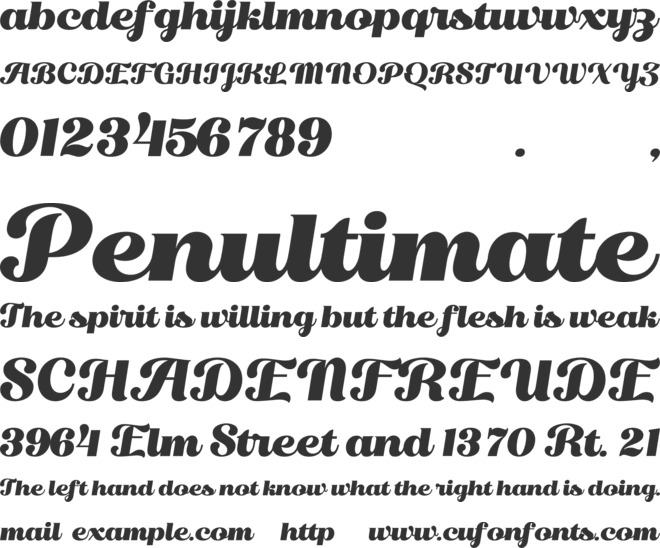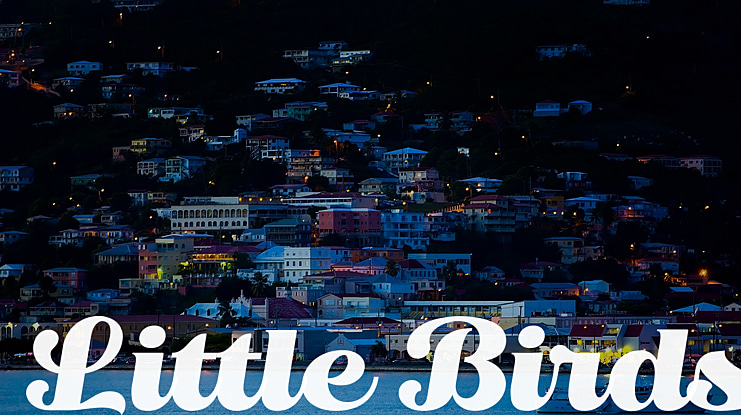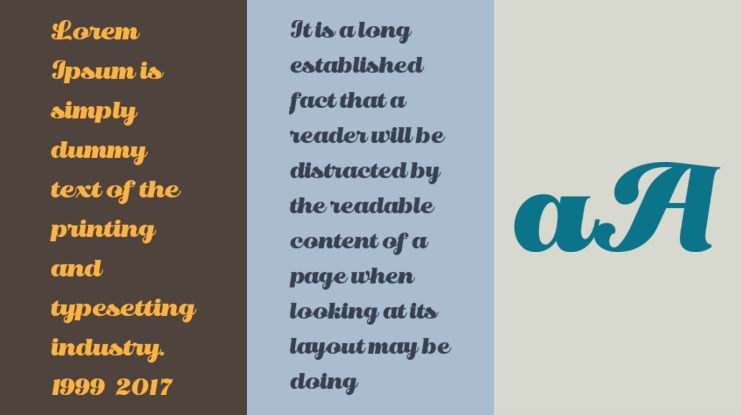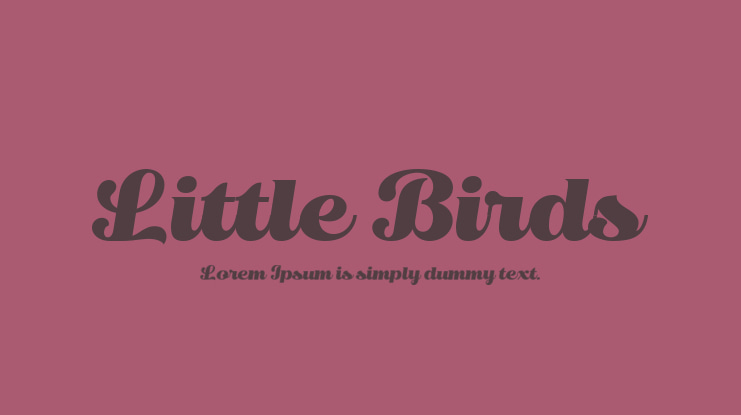
Little Birds Font
Little Bird font script that can be used with vintage, simple and modern styles. very suitable for logos, posters, t shirts etc.
What New? The font has better quality than before with a few stylistic and ligature additions
Feature
upercase
Lowercase
Numeral
Functional
Latin Simple
Ligature
Stylistic